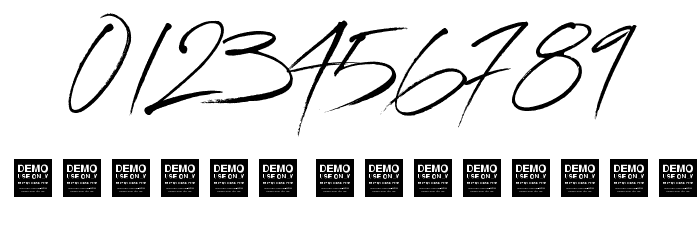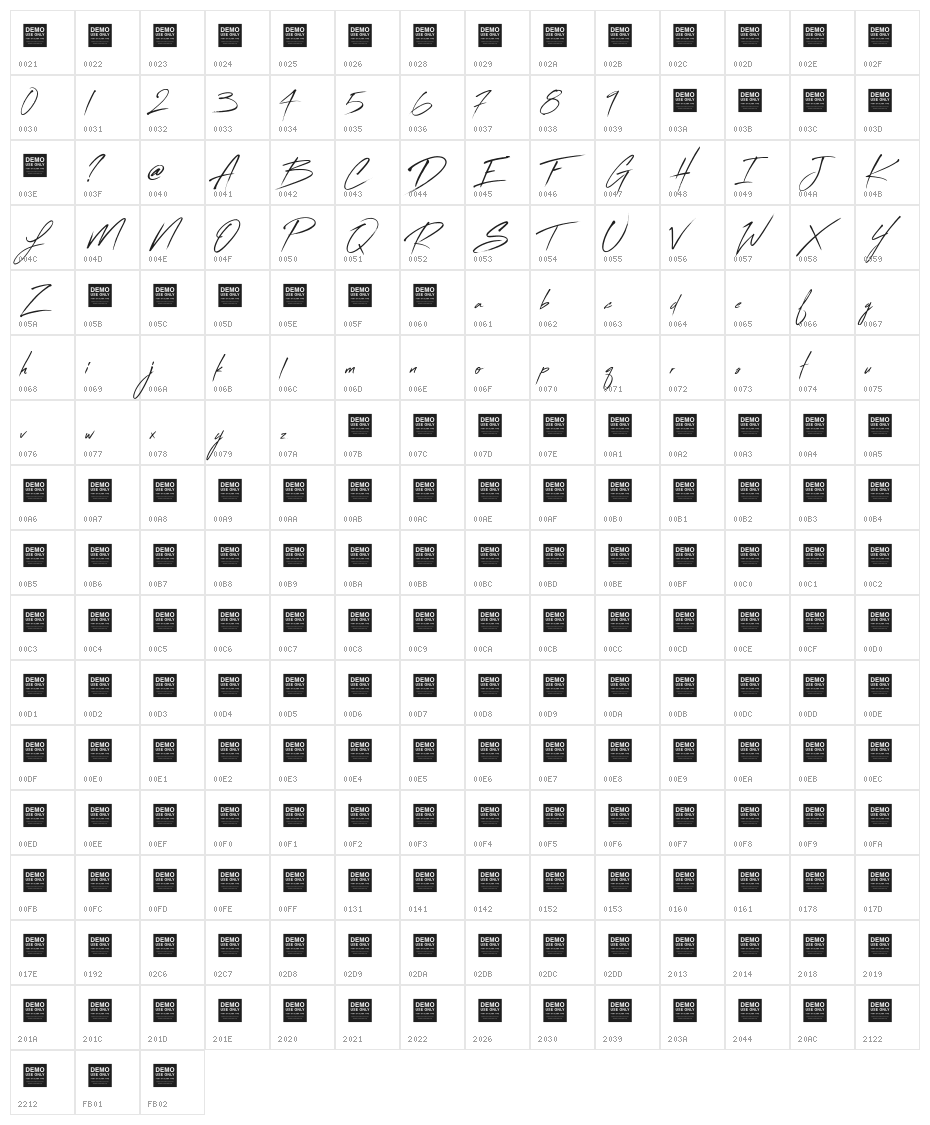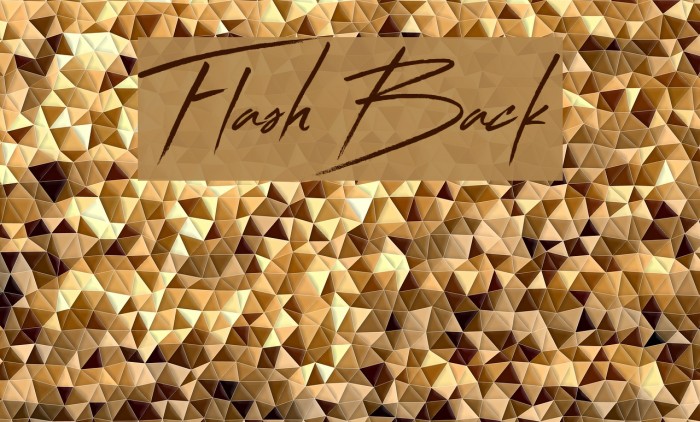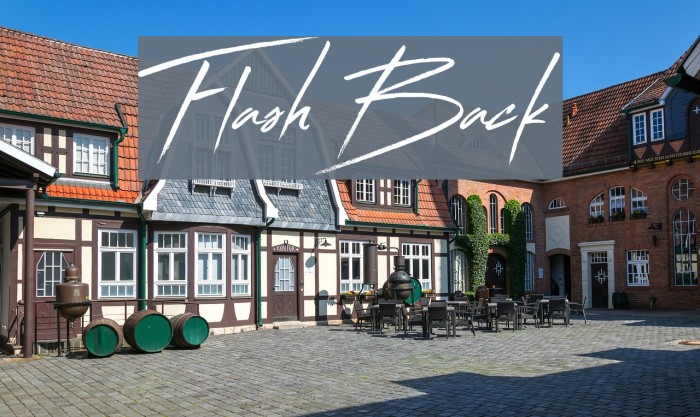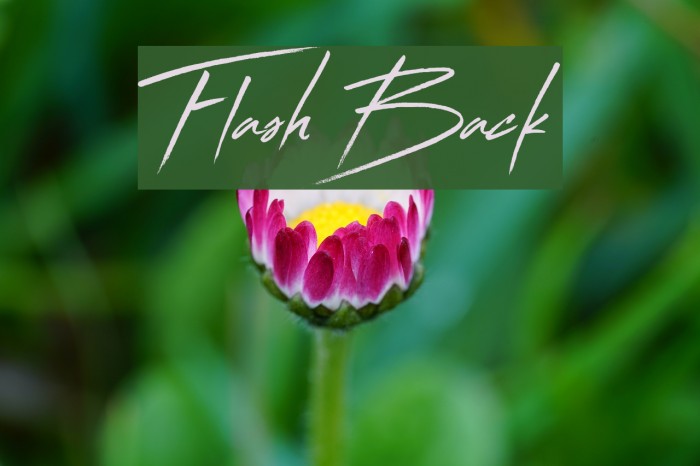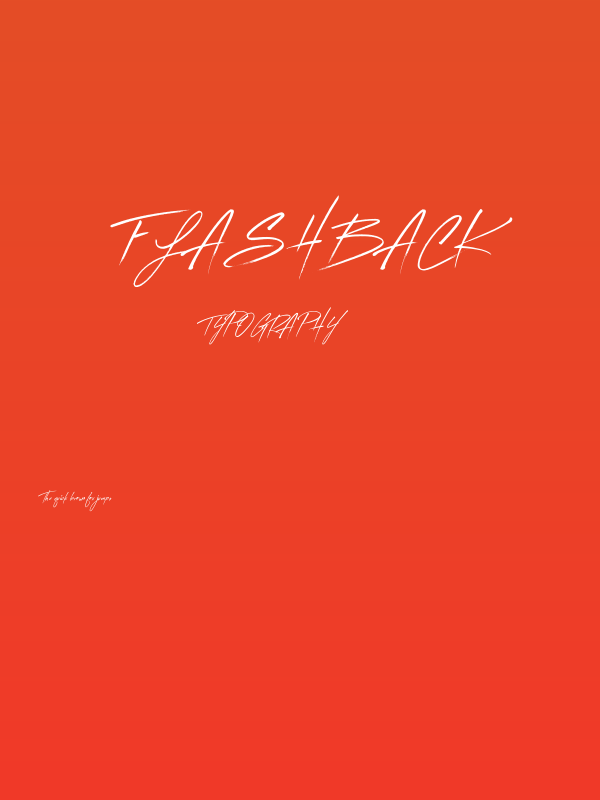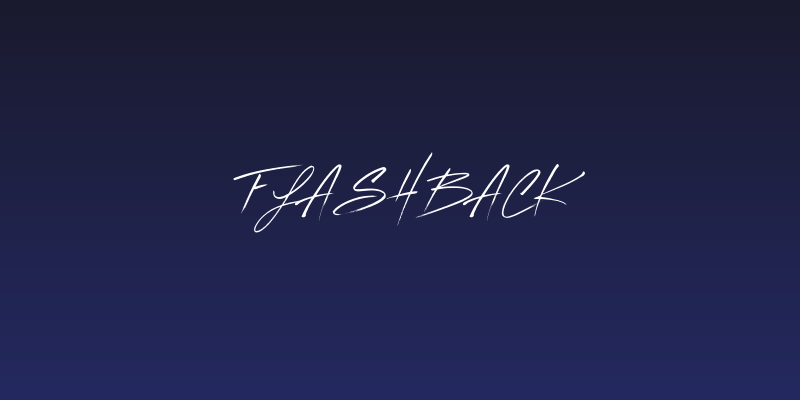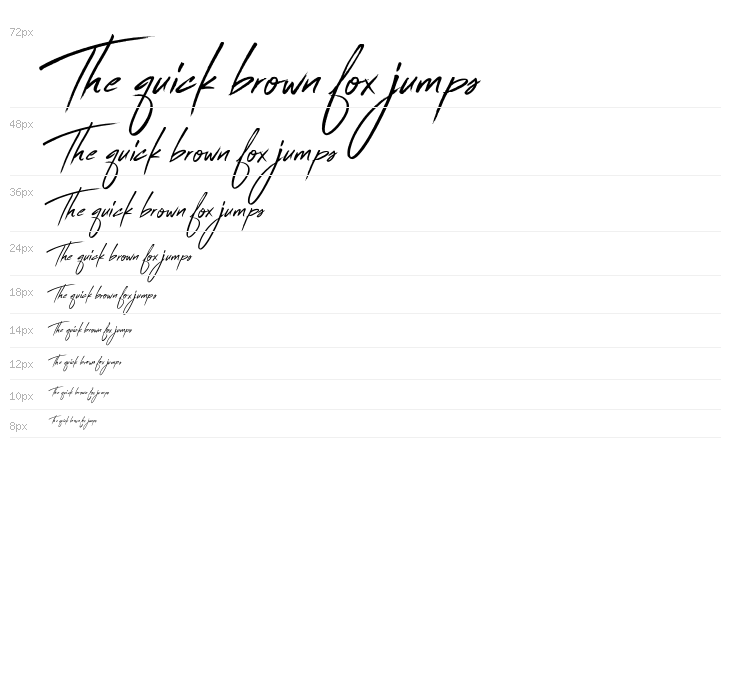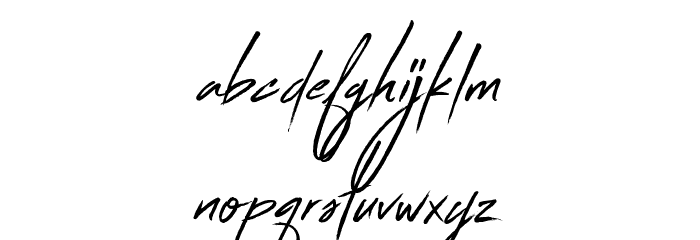
Flash Back Font
Flash Back Description
This font exudes a dynamic and energetic feel, characterized by its sharp, angular strokes and fluid, cursive style. The uppercase letters are bold and commanding, with a distinctive slant that adds a sense of motion. The lowercase letters maintain the same fluidity, with some characters featuring unique loops and swirls that enhance its handwritten appeal. Numbers are equally expressive, maintaining the same slanted, cursive style. This font is perfect for projects that require a personal touch, such as invitations, branding, or artistic designs. Its unique style makes it stand out, providing a modern yet personal aesthetic.
Use CaseLogos, Headlines, Artistic designs
Proposed ProjectsIdeal for invitations, branding, artistic designs, and any project needing a personal touch.